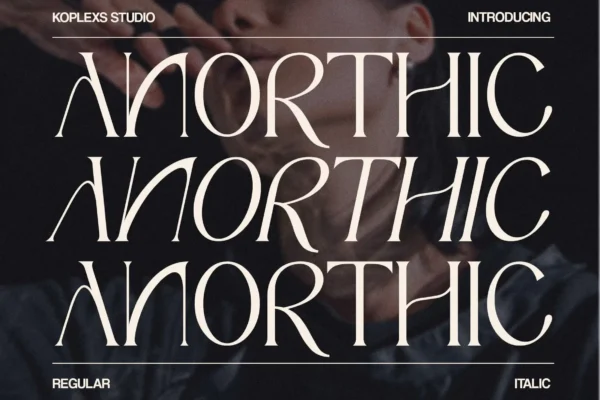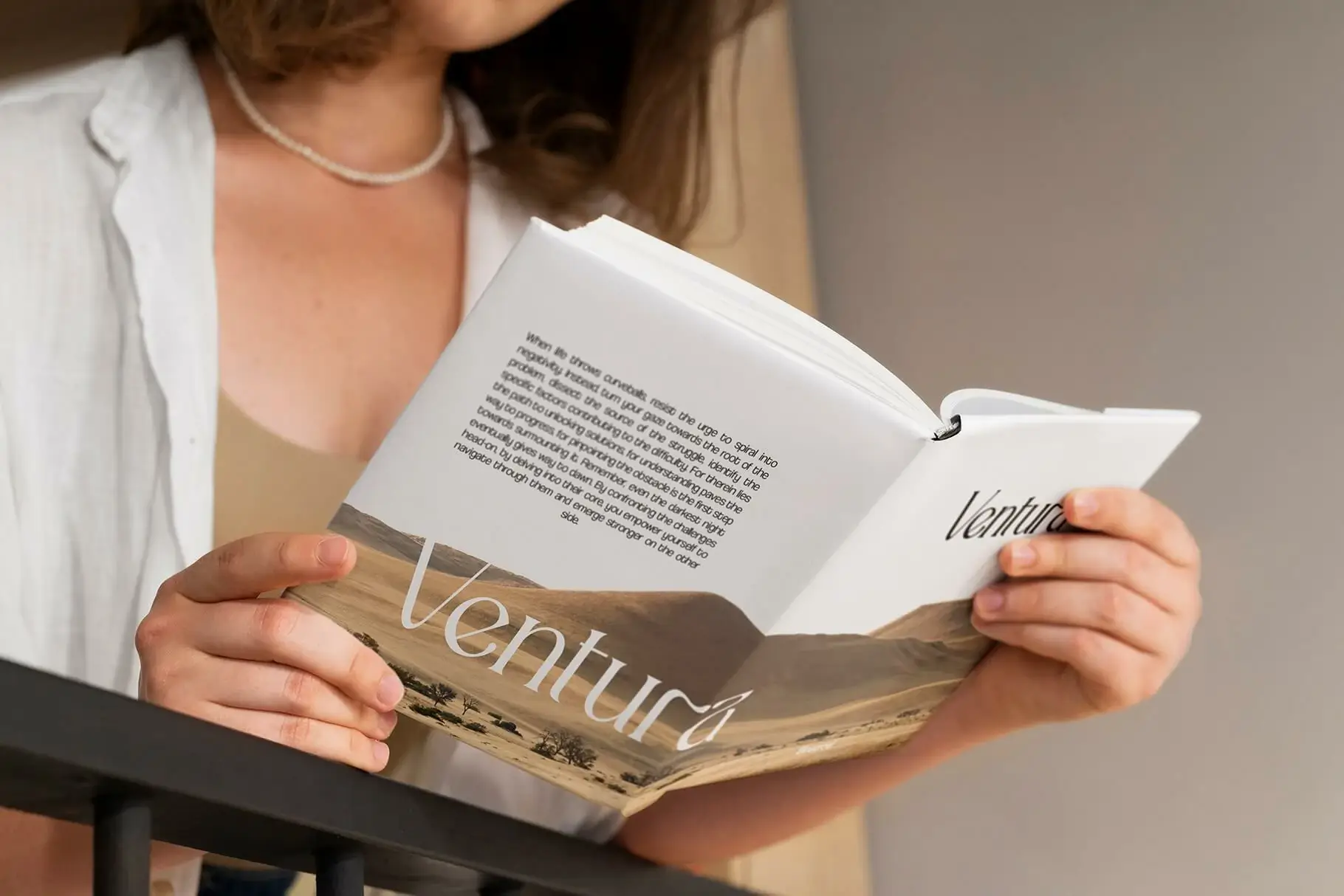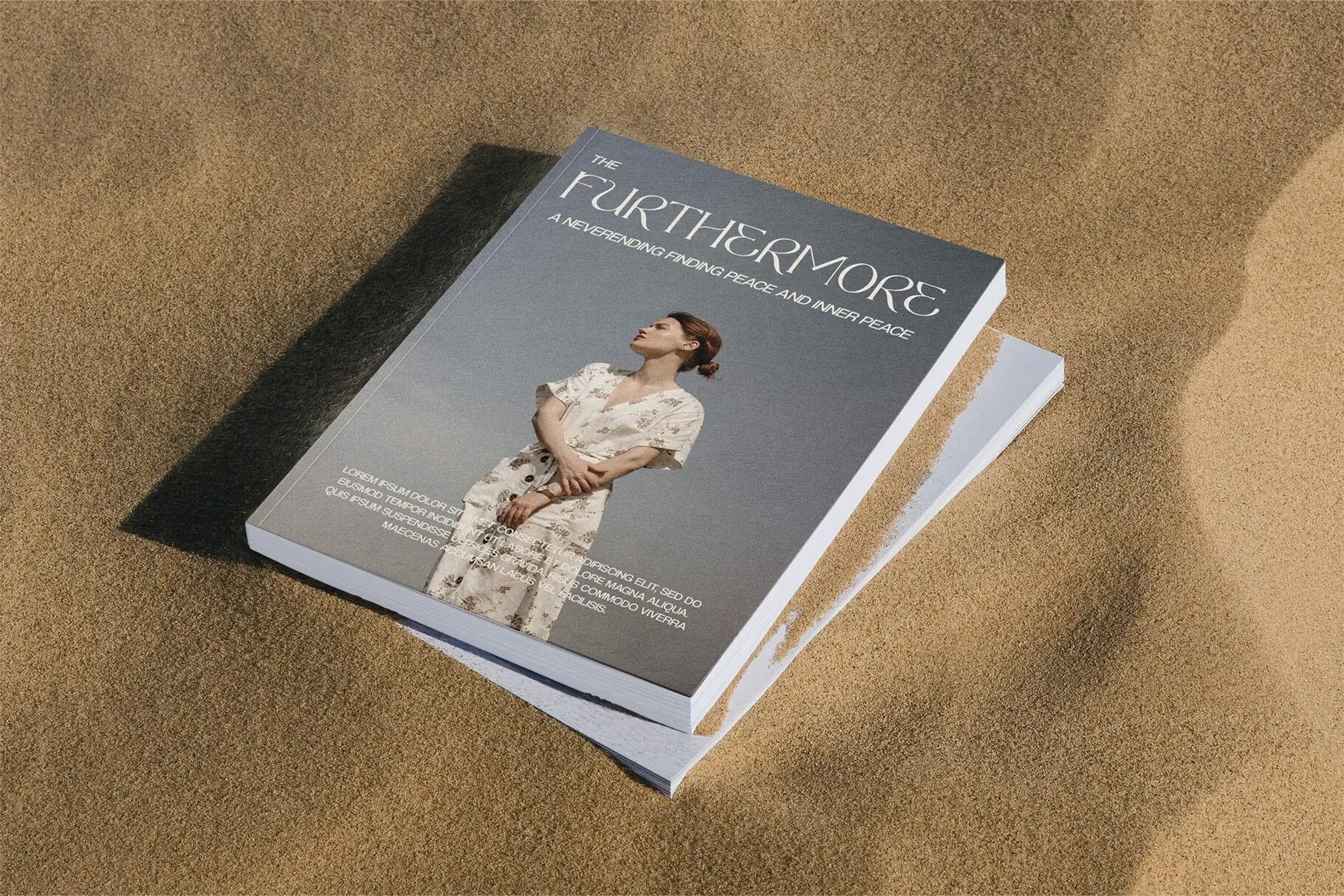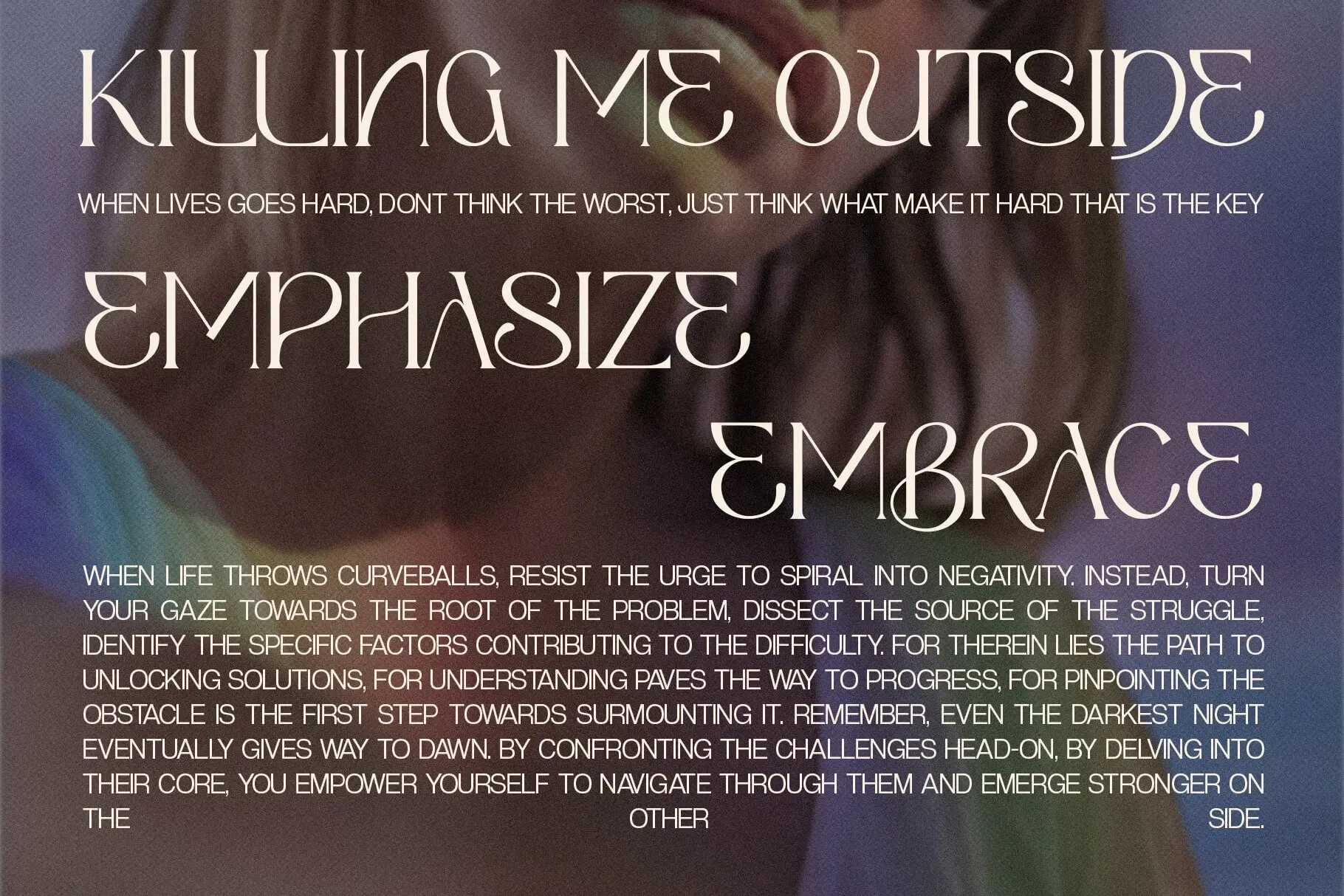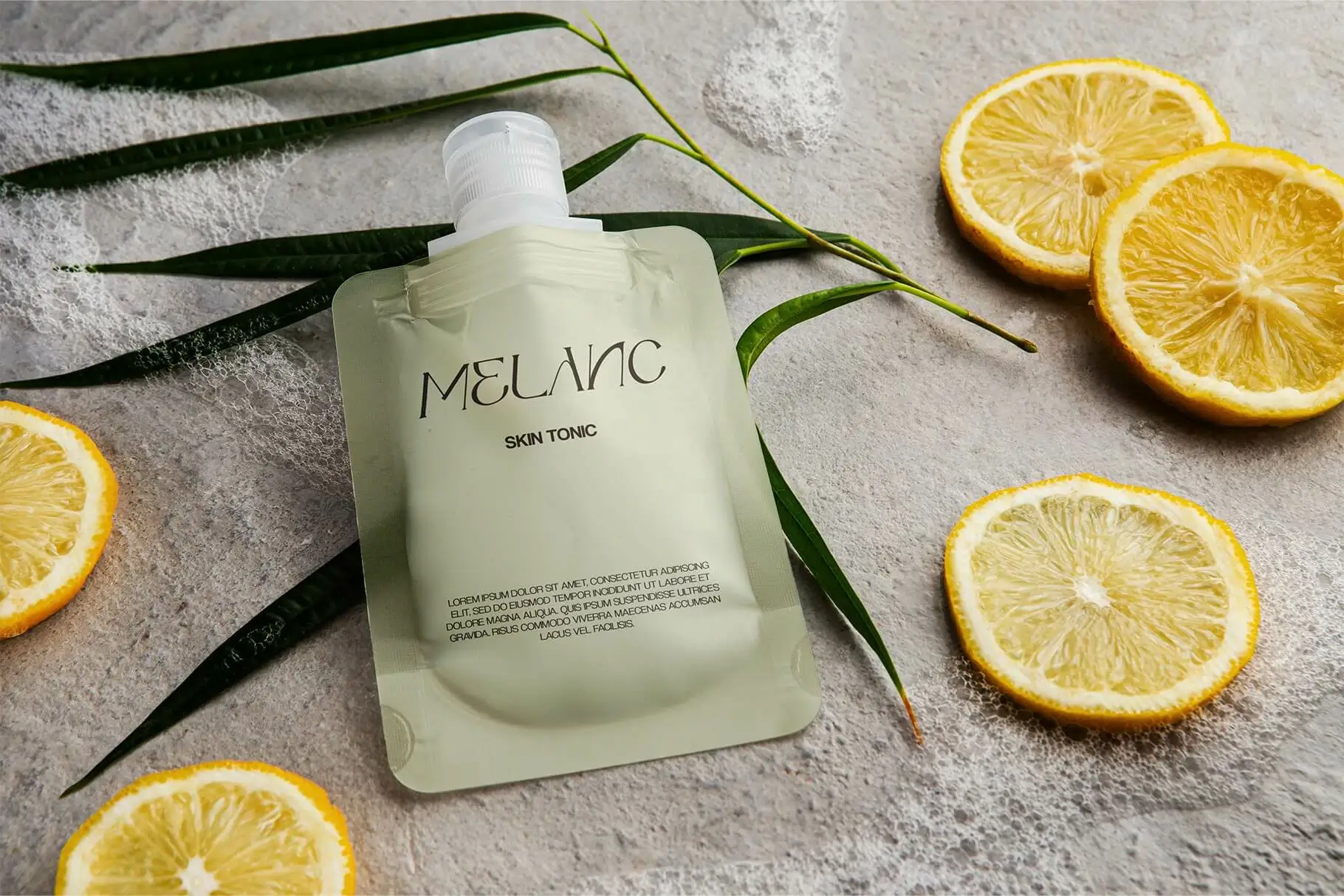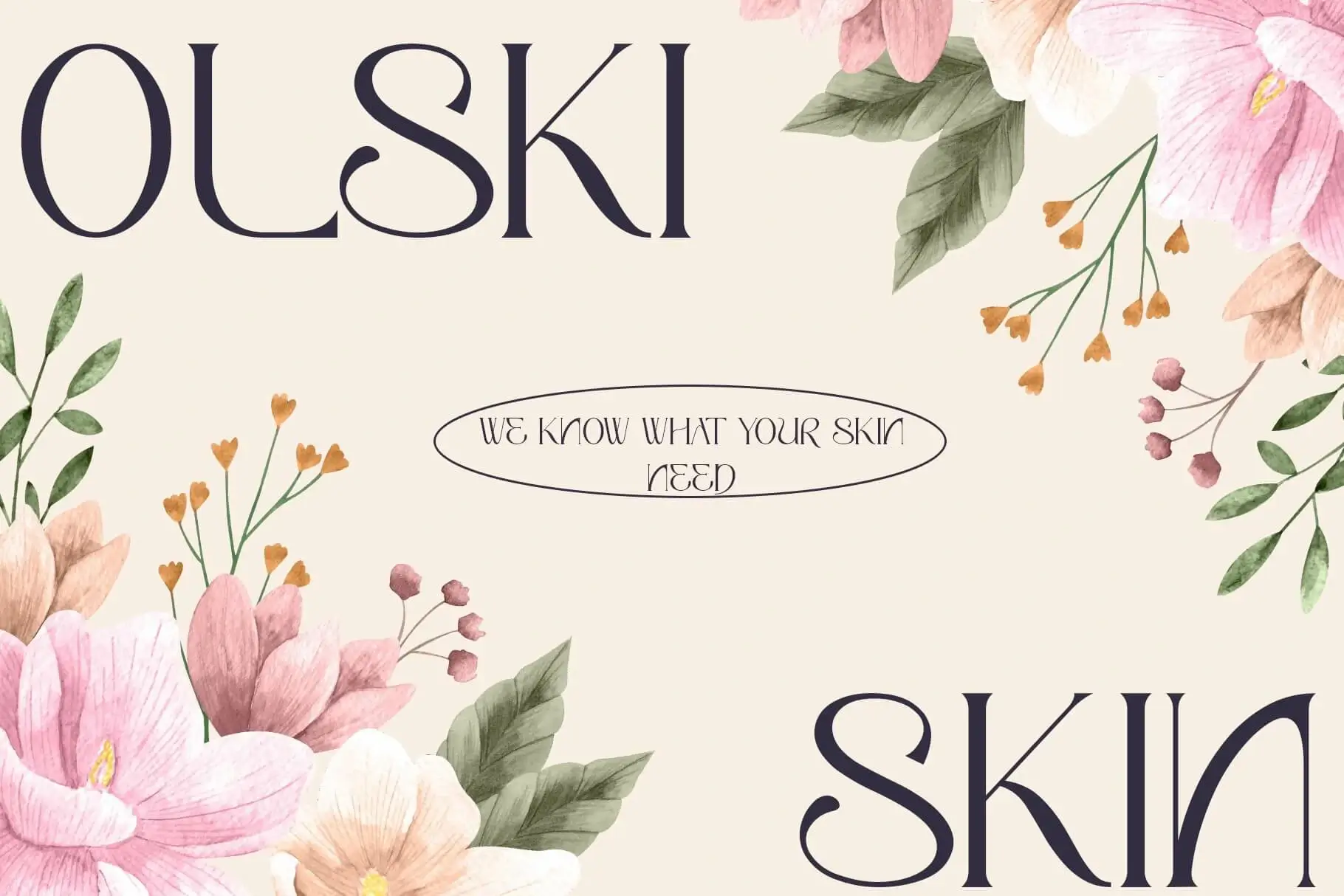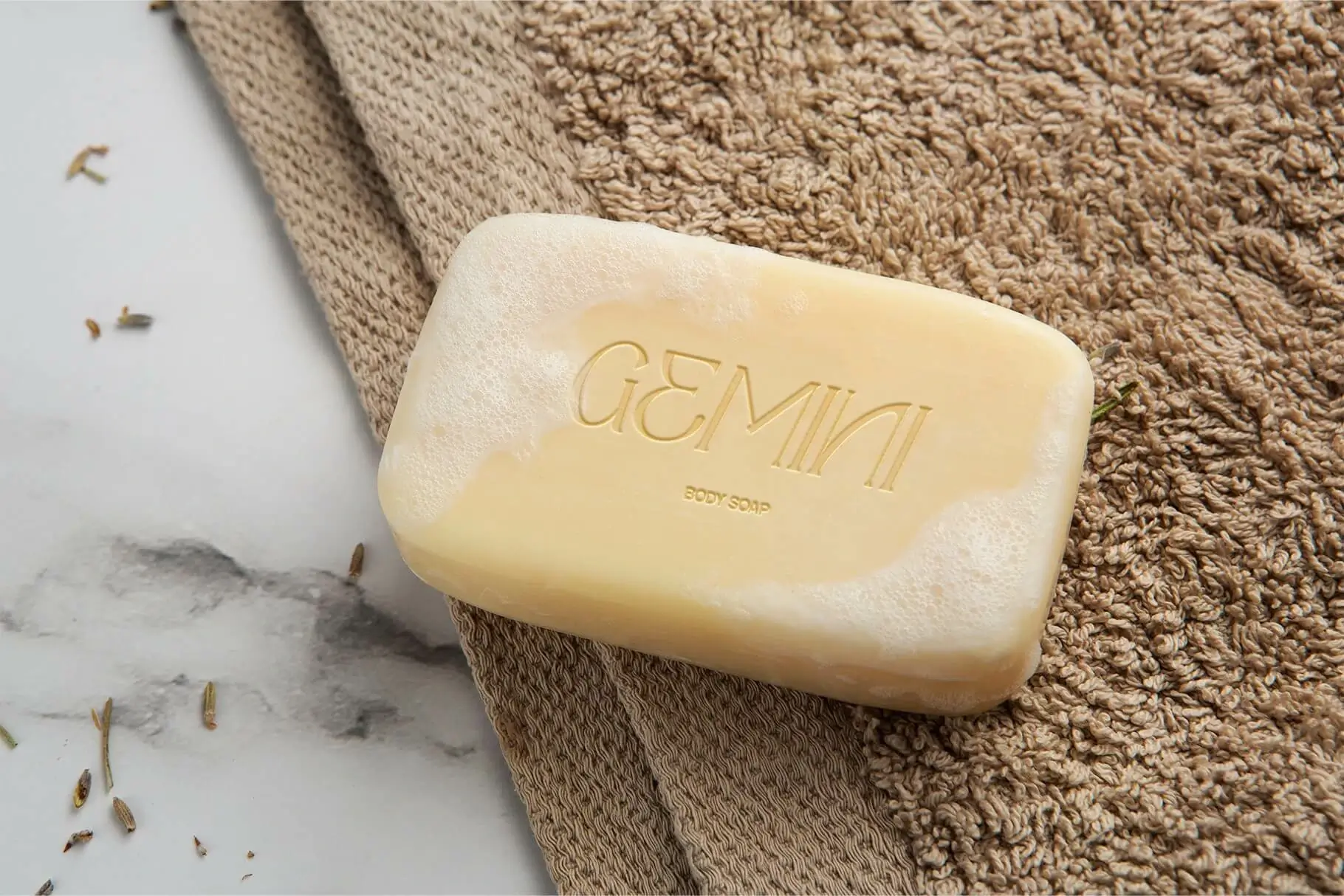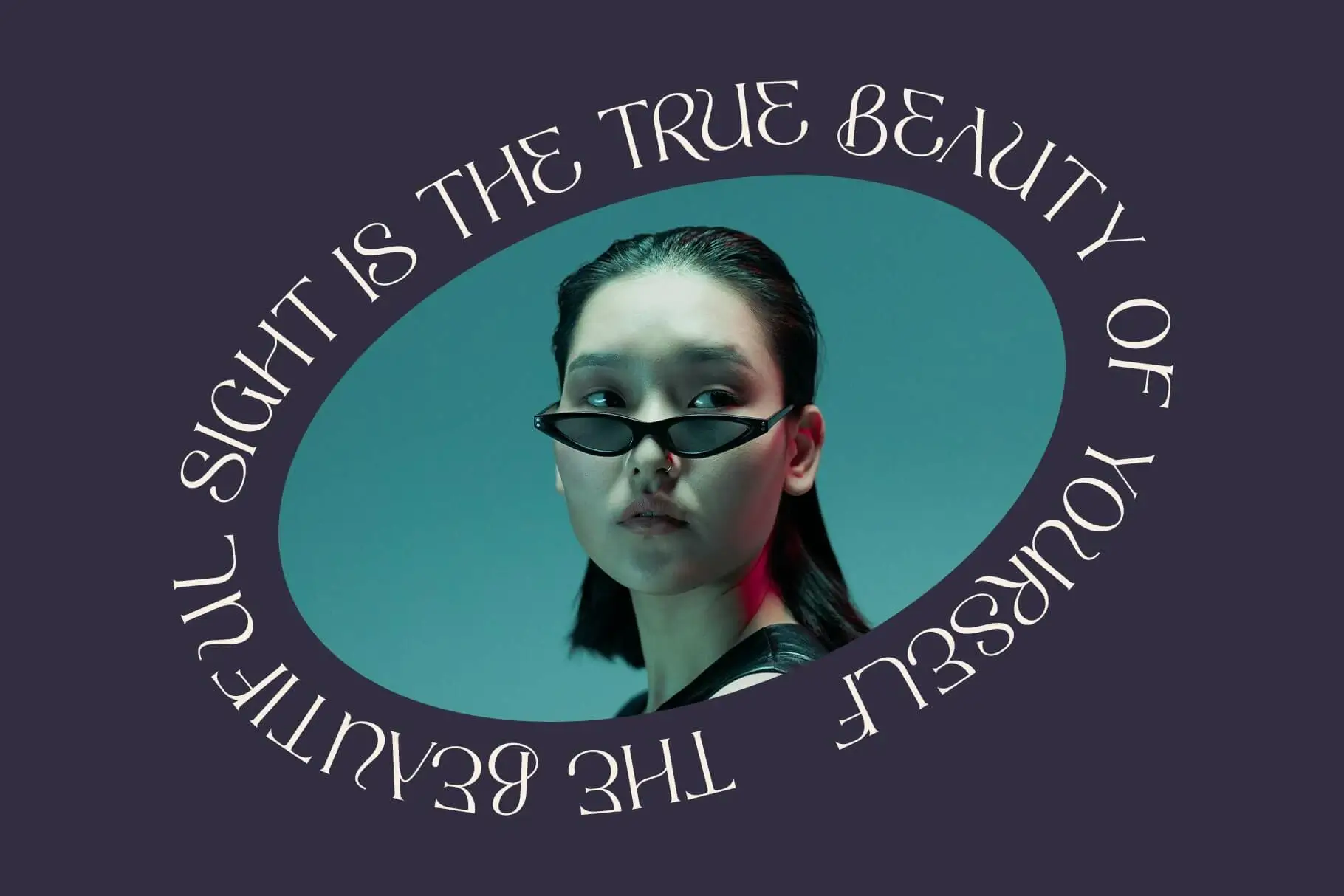
Anorthic Font
Anorthic Font is a modern classic serif font with high contrast, elegant curves, and refined details. Ideal for luxury branding, editorial, and packaging.
Anorthic Font
Anorthic Font — a sophisticated serif typeface that fuses classical elegance with modern attitude. Designed with dramatic contrast and stylized strokes, Anorthic stands tall as a typeface perfect for refined branding, editorial layouts, fashion headlines, and luxury packaging.
At the core of Anorthic’s personality lies its high-contrast structure. Thin, elongated stems gracefully meet bold, confident terminals, giving each character a sense of movement and delicacy. These letterforms feel both sharp and fluid — drawing the eye without shouting, commanding presence without overpowering.
The font’s unique approach to curves and angles gives it an editorial elegance that feels right at home in a fashion magazine, yet is versatile enough to be used for modern packaging or upscale branding. This makes Anorthic Font a superb choice for designers looking to strike a balance between classic aesthetics and contemporary boldness.
It comes in two refined styles — Regular and Italic — each designed to complement the other, offering flexibility and cohesion across your typography system. Whether used for a striking logotype or delicate body text in a lookbook, Anorthic adapts beautifully.
• Elegant serif font with modern classic style
• High contrast between thick and thin strokes
• Two styles: Regular & Italic
• Uppercase and lowercase support
• Multilingual support
• Editorial layouts and magazine headlines
• Luxury fashion branding
• Beauty product packaging
• High-end book covers
• Wedding invitations and formal events
• Elegant logotypes
• Boutique identity systems
• Premium perfumes or skincare products
Anorthic draws its charm from its visual rhythm — the harmonious blend of elongated verticals and sharp yet soft transitions. It’s a typeface that feels poetic and authoritative, graceful yet bold. You can use it to add a layer of depth and distinction to any design without needing loud colors or complex graphics.
Pair Anorthic with minimalist photography, earthy tones, or sophisticated textures to maximize its luxurious appeal. Its presence is especially potent in large sizes, where the letterform contrast and details can truly shine.
Whether you’re working on fashion editorials, branding an artisanal fragrance, or designing covers for niche publications, Anorthic Font will elevate your work with timeless class and subtle drama.
Elegance meets expression. Let Anorthic be your typographic signature.